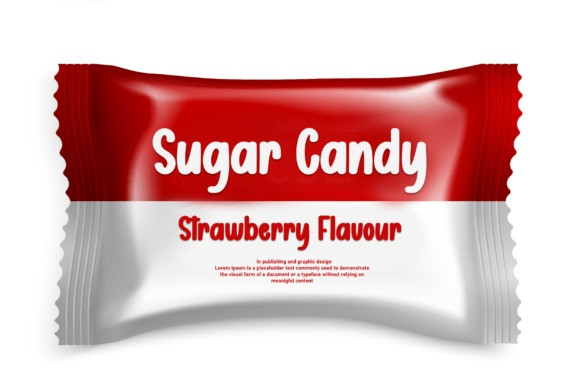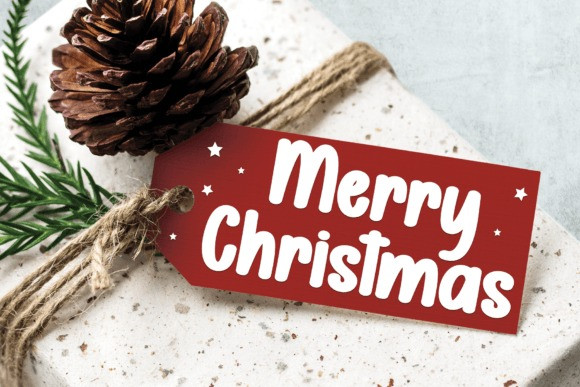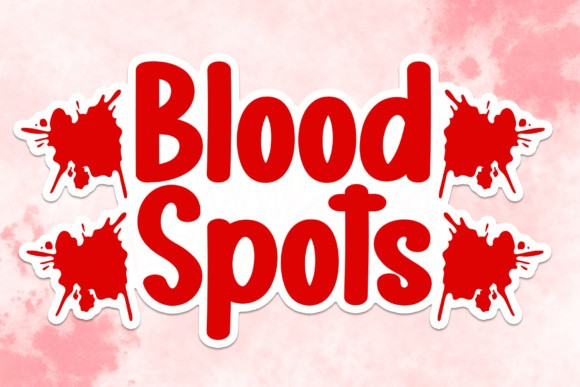
Blood Spots Font
Blood Spots is a lovely and timeless handwritten font. It is the best choice for creating eye catching logos, branding and quotes. Every letter has a unique and beautiful touch, which will make your design come alive!